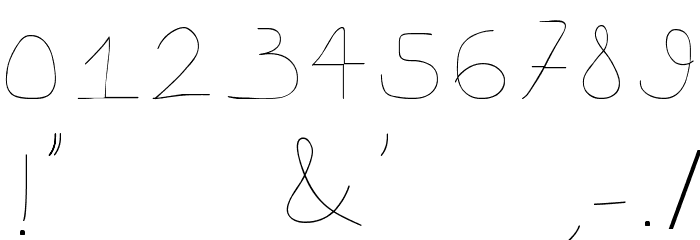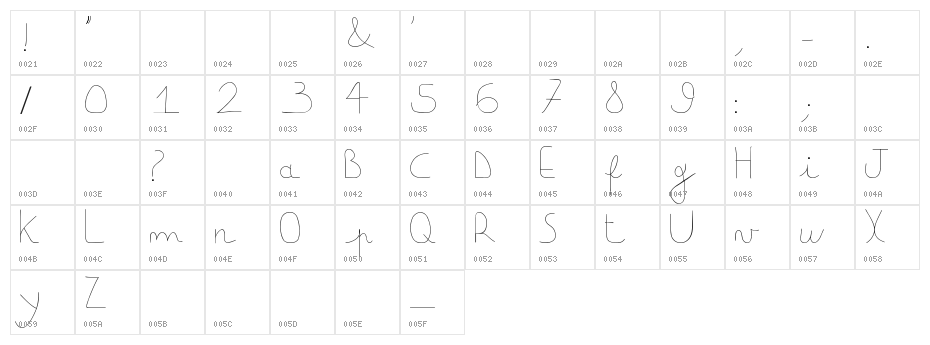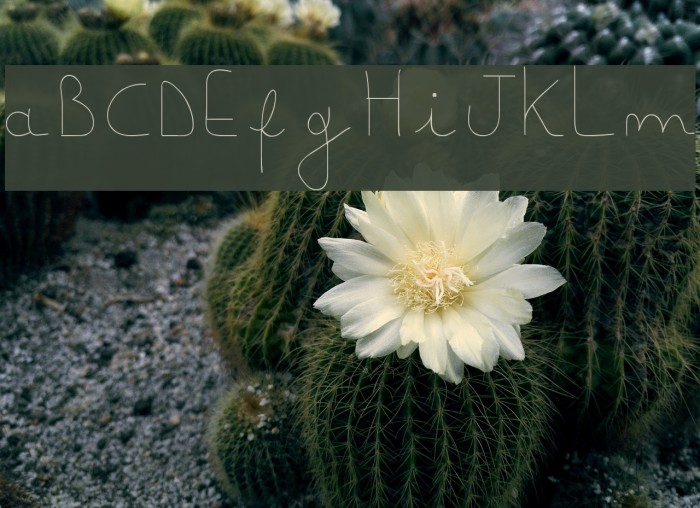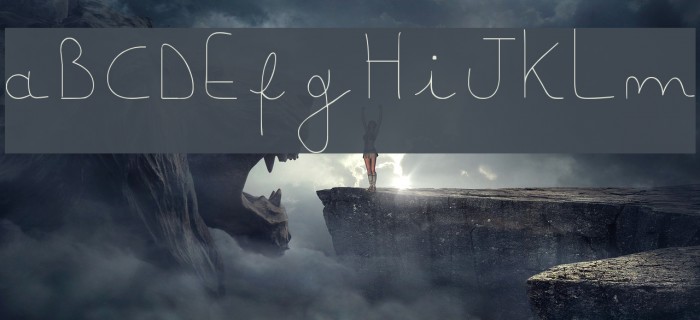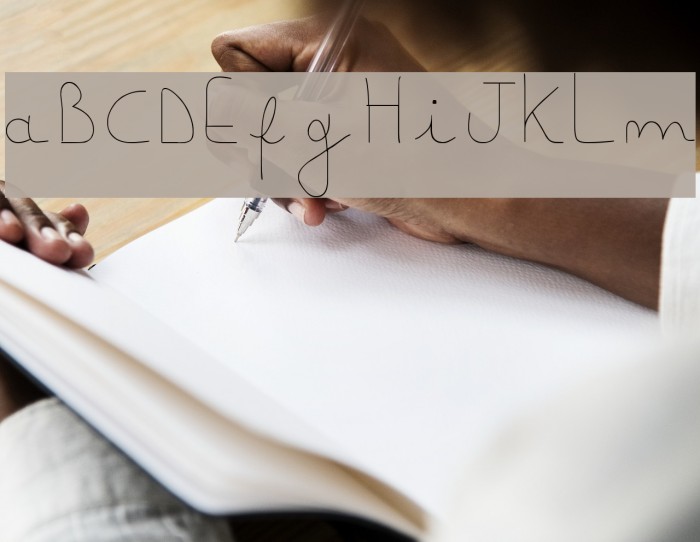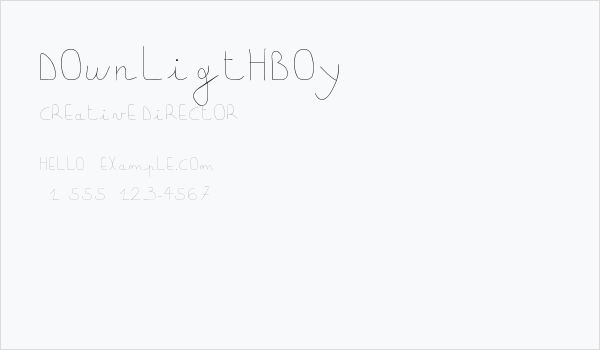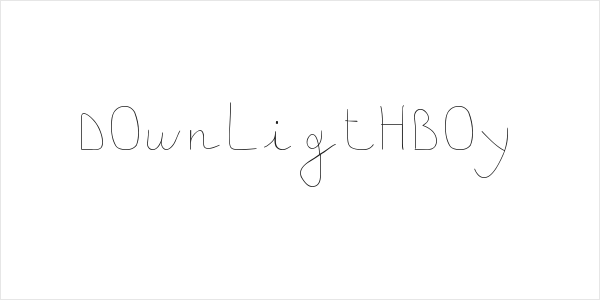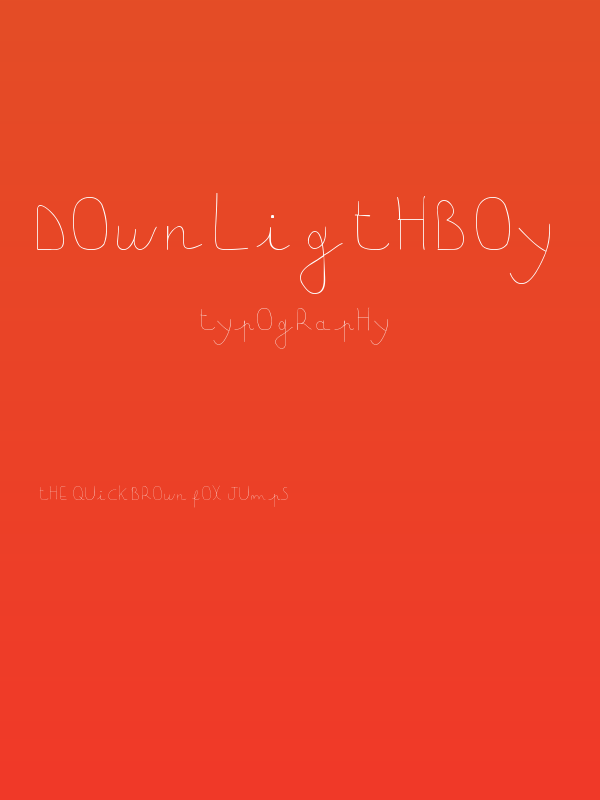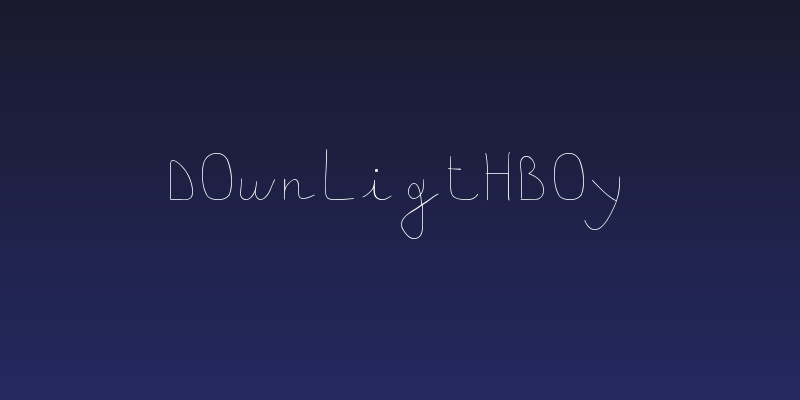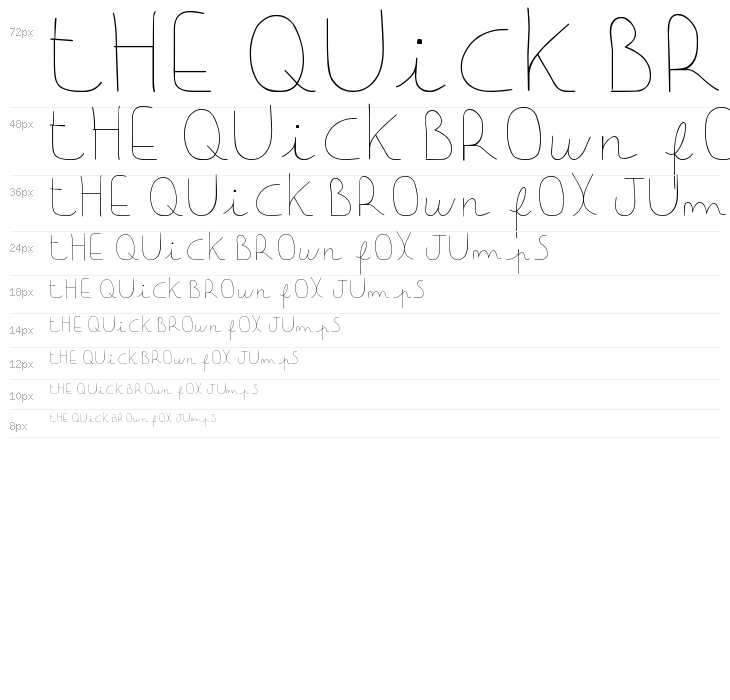
downligthboy Font
downligthboy Description
This font features a delicate, handwritten style with a modern twist. The characters are thin and elongated, giving a sense of elegance and sophistication. The uppercase letters maintain a consistent height, while the lowercase letters exhibit a playful, slightly whimsical quality. The numerals are clear and easy to read, matching the overall aesthetic of the alphabet. Special characters are included, maintaining the same thin line quality, which adds to the font's versatility. This font is ideal for projects that require a personal touch, such as invitations, greeting cards, or branding materials.
| Proposed Projects | Ideal for invitations, greeting cards, branding, and personal projects. |